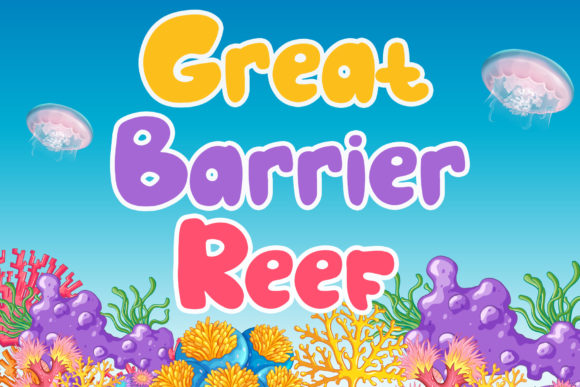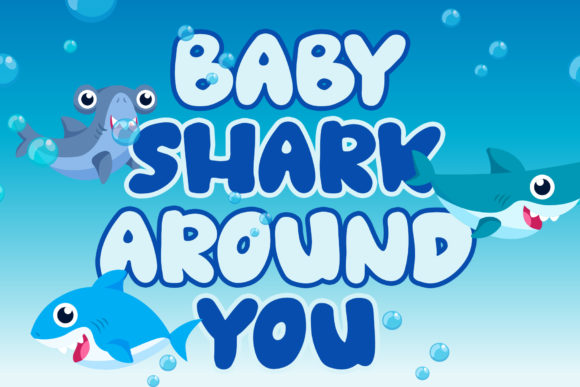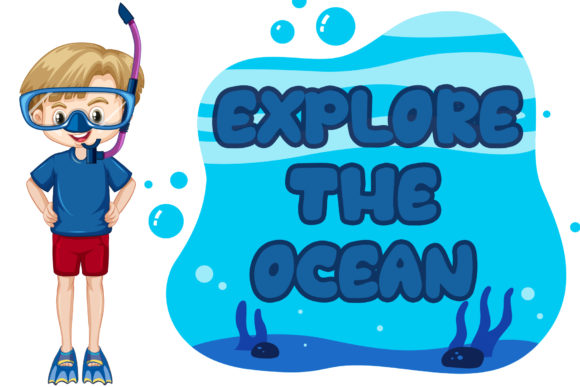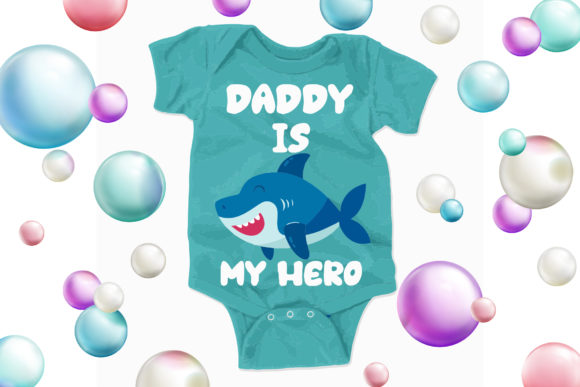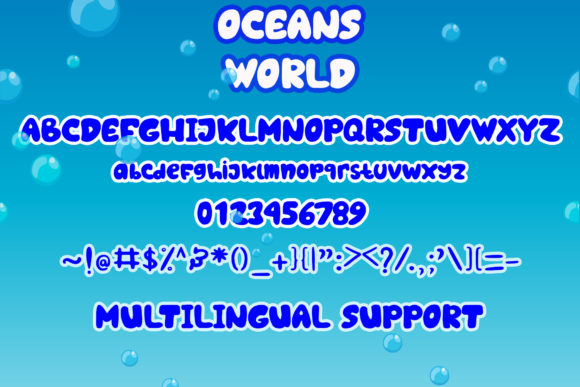
Introduction to Oceans World Font Font
Fonts play a crucial role in design, and the Oceans World Font font is a typeface that brings both character and versatility to any project. Whether you’re working on a branding project, a website, or a print design, the Oceans World Font font offers a unique style that can elevate your work.
Oceans World is a solid and quirky display font.
It is good for any project and season Build your creativity with this font.
Key Features of Oceans World Font Font
Why Choose Oceans World Font Font?
The Oceans World Font font is more than just a typeface – it’s a design tool that helps you communicate your message with style and clarity. Its unique character set and versatile design make it suitable for a wide range of applications, from elegant invitations to bold headlines.
With its carefully crafted letterforms and balanced proportions, the Oceans World Font font ensures readability and visual appeal across all mediums.
What makes Oceans World Font font special?
The Oceans World Font font stands out with its unique design, exceptional readability, and versatility across various design applications.